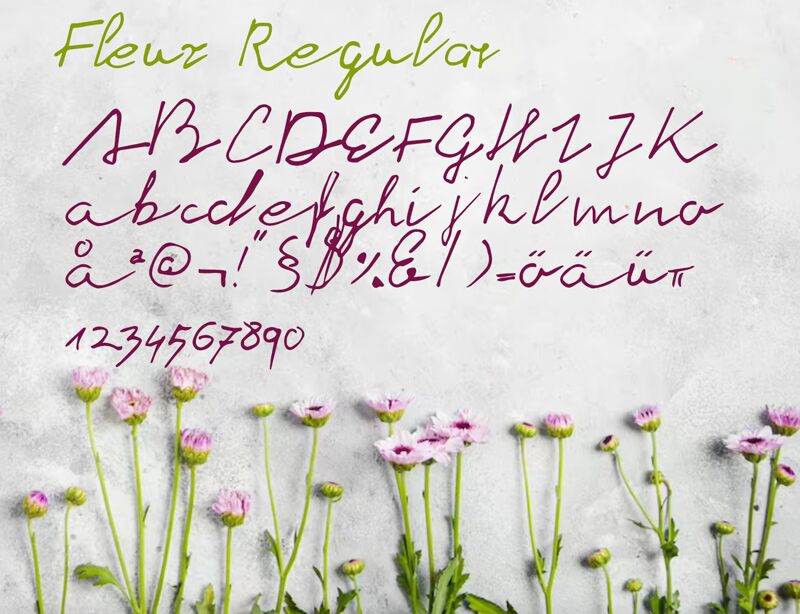
Fleur, crafted by the talented designer Markus Schröppel, is an exquisite handwritten font with a touch of delicacy. Its semi-light weight adds elegance to any project, making it perfect for invitations, greeting cards, and wedding stationery. With its flowing curves and graceful strokes, Fleur brings a sense of whimsy to branding materials and packaging designs. This versatile typeface gracefully combines the charm of handwritten letters with a modern twist. Whether you're designing for fashion blogs or crafting personalized logos, Fleur is a captivating choice that will effortlessly elevate your creative endeavors.
Fleur